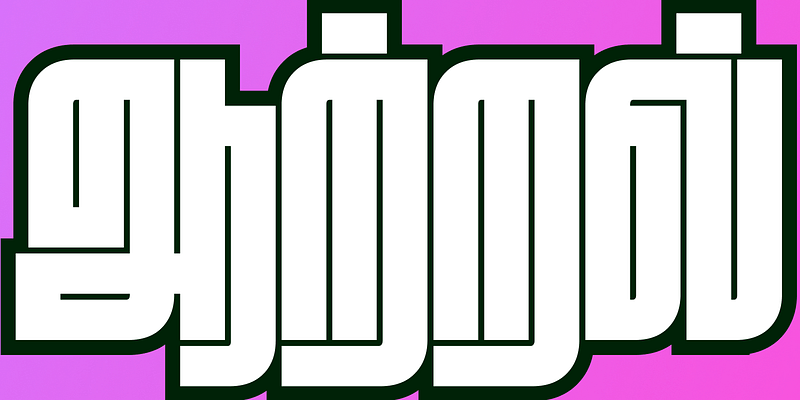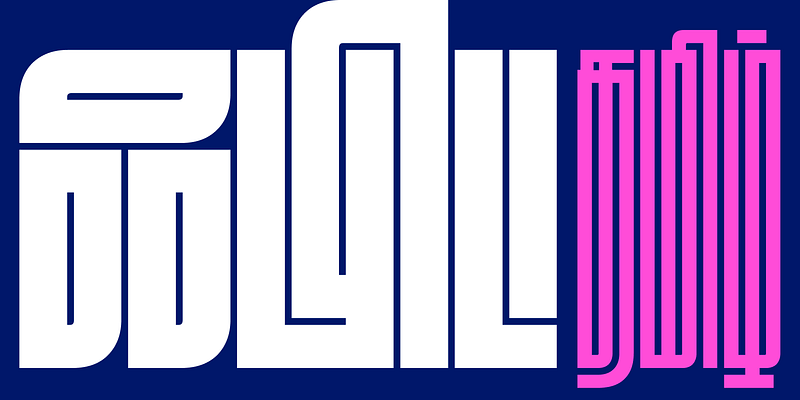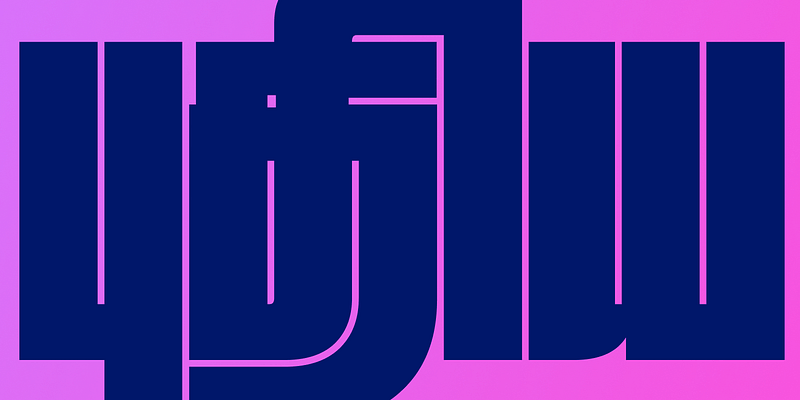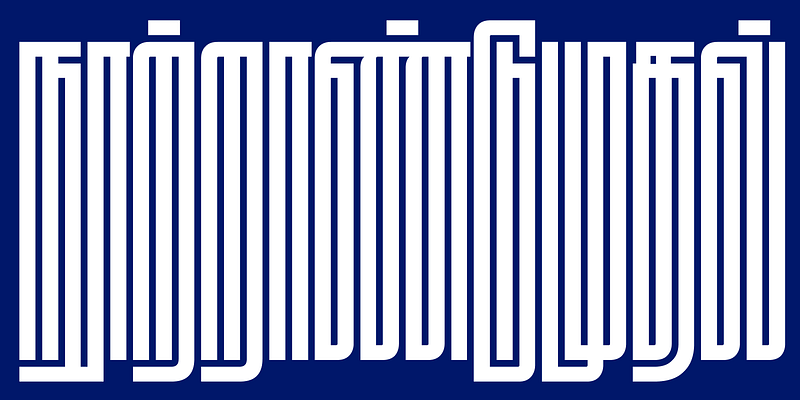
Fit is a hyper-stylized series of caps designed with one thing in mind: filling up space with maximum impact. With an expansive range of widths, Fit will take just about any text and fit it into just about any space. In 2023, Aadarsh Rajan adapted the design to the Tamil script, adeptly balancing Fit’s blocky simplicity with the complexity of Tamil’s letterforms.